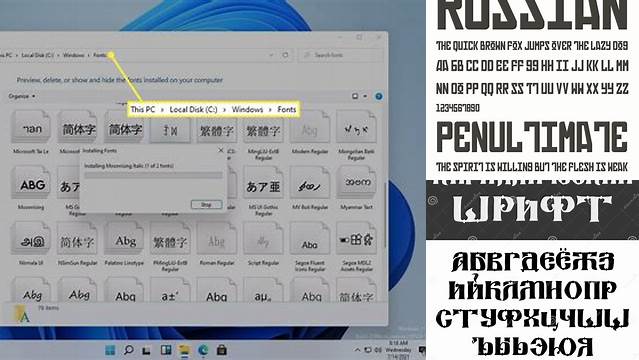
Install Russian Fonts On Windows 11: A Complete Guide
Are you looking to enhance your Windows 11 experience with Russian fonts? Whether you're a student studying the language, a professional working with Cyrillic text, or simply someone who appreciates the beauty of Russian typography, having the right fonts installed is crucial. This guide provides a comprehensive overview of how to install, manage, and utilize Russian fonts on your Windows 11 system. We'll explore various aspects, from understanding the basics of Cyrillic fonts to recommending the best font choices for different purposes. So, let’s dive in, guys!
Understanding Cyrillic and Russian Fonts
First things first, let's get acquainted. Cyrillic is an alphabetic writing system used for various languages, including Russian, Ukrainian, Belarusian, Bulgarian, Serbian, and Macedonian. Russian, being the most widespread language using Cyrillic, has a rich tradition of typography. Russian fonts are essentially typefaces designed to display the Cyrillic alphabet. When you install a Russian font, you're essentially adding a set of characters and glyphs that your computer can use to render Russian text. These fonts ensure that you can accurately read and write in Russian across different applications and documents. The correct display of Cyrillic characters requires a font that supports the necessary glyphs. Not all fonts support the full Cyrillic alphabet, which includes letters specific to Russian and other languages. Therefore, when selecting Russian fonts for Windows 11, it's essential to choose fonts that fully support the Cyrillic alphabet to avoid missing characters or rendering issues. This often means looking for fonts that explicitly state their Cyrillic support or are commonly used for Russian text. The choice of font can significantly impact readability and aesthetics. Some fonts are designed for clarity, making them ideal for reading large blocks of text. Others are more decorative, perfect for headings, titles, or creative projects. The availability of a wide range of Cyrillic fonts allows users to find options that match their specific requirements. Using the right font will guarantee an authentic representation of the Russian language. You may also consider the license of the font. Some fonts are free to use, while others require a license. For commercial projects, ensuring that the font license permits the intended use is crucial. Many websites offer free Russian fonts for download, but it's essential to check the licensing terms. Always download fonts from trusted sources to avoid security risks and ensure the fonts are well-designed and functional. This practice will prevent any issues later on with the fonts you choose.
Recommended Russian Fonts for Windows 11
Choosing the right Russian fonts can make a significant difference in readability, aesthetics, and overall user experience. Here are some recommended Russian fonts for Windows 11, categorized by their best uses. For general use and readability, consider fonts like Arial, Calibri, and Times New Roman. These fonts are widely used and offer excellent readability for everyday documents, emails, and web content. They also support the Cyrillic alphabet. These fonts are often the default in many applications. For more stylistic options, try using fonts such as PT Serif and Open Sans, both of which are highly legible and offer a distinct visual appeal. PT Serif is a serif font designed specifically for Russian and other Cyrillic languages, while Open Sans is a versatile sans-serif font. Both are great choices for longer texts and can enhance the overall appearance of your documents. When it comes to headings and titles, consider using fonts like Bebas Neue and Montserrat. These are strong, modern fonts that work well for headlines, titles, and other display purposes. Both fonts are available with Cyrillic support, making them a perfect option for Russian text. You should also keep in mind fonts optimized for specific purposes, such as programming. In this case, you can use fonts like Fira Code or JetBrains Mono, which are designed to improve the readability of code. These fonts typically include excellent Cyrillic support and are well-suited for developers working with Russian-language comments or documentation. These fonts also ensure the correct presentation of special characters often used in programming. Additionally, you can find many creative Russian fonts specifically designed to reflect traditional Russian calligraphy. These fonts may include elements like Old Slavic style, traditional decorations, and unique letterforms. These are best used for artistic and creative projects where traditional and authentic styles are necessary. The best approach, though, is to test and combine fonts to enhance the visual appeal and effectiveness of your content. Experiment with different combinations to see what works best for your specific needs. Also, it is a good idea to consider the font's license before choosing one. Make sure you are using a font that is suitable for your purpose. If you plan to use the font for commercial work, you need to make sure the font's license permits it.
Tips for Using Russian Fonts Effectively
To get the most out of your Russian fonts on Windows 11, here are some handy tips. To enhance readability, adjust font sizes and styles as needed. For example, use a slightly larger font size for older readers, or use bold or italic styles to emphasize important words. Experiment with different font sizes and styles to find the best fit for your documents or projects. Using a good font pairing can enhance your projects. Combining different fonts to create visually appealing and effective documents can significantly improve aesthetics. A good strategy is to pair a serif font for the body of the text with a sans-serif font for headings, which will add contrast. When working with Russian fonts, always ensure that the font you select has full Cyrillic support. Some fonts only have partial support, which might cause missing characters or incorrect rendering. Before choosing a font, test it with Cyrillic text. When selecting fonts for print materials, you'll have to consider the print quality and readability. If you are working with print materials, consider choosing fonts that are suitable for printing, such as those with high resolution and clear letterforms. Some fonts that look good on screen might not perform well in print. Always check the final output before committing to printing a large volume of documents. If you're creating web content, optimize fonts for online use. For online projects, ensure that your selected fonts are web-safe. You can do this by using fonts that are widely supported by all web browsers. Web-safe fonts reduce the risk of font rendering issues on different devices and browsers. You can also consider using font embedding techniques to make your custom fonts available to all users. Consider accessibility when choosing fonts, particularly if your documents are meant for a wide audience. Ensure that the fonts you select are easy to read for users with visual impairments. Use high contrast between the text and the background, and avoid fonts with overly intricate letterforms that might be difficult to read. By carefully considering these tips, you can maximize the effectiveness of your Russian fonts and create professional, visually appealing documents and projects. Keep in mind that the right fonts are an essential part of your overall workflow.
In conclusion, installing and managing Russian fonts on Windows 11 is a straightforward process that enhances your ability to work with Cyrillic text. By following the steps outlined in this guide, you can easily install, manage, and troubleshoot any issues that may arise. From choosing the right fonts to managing them effectively, you're now equipped with the knowledge to optimize your Windows 11 experience for Russian language use. Remember to select fonts that support the Cyrillic alphabet, consider the context of your work, and always prioritize readability and aesthetics. With these tips and techniques, you’re now ready to create beautiful and functional documents in Russian! Happy typing, guys!